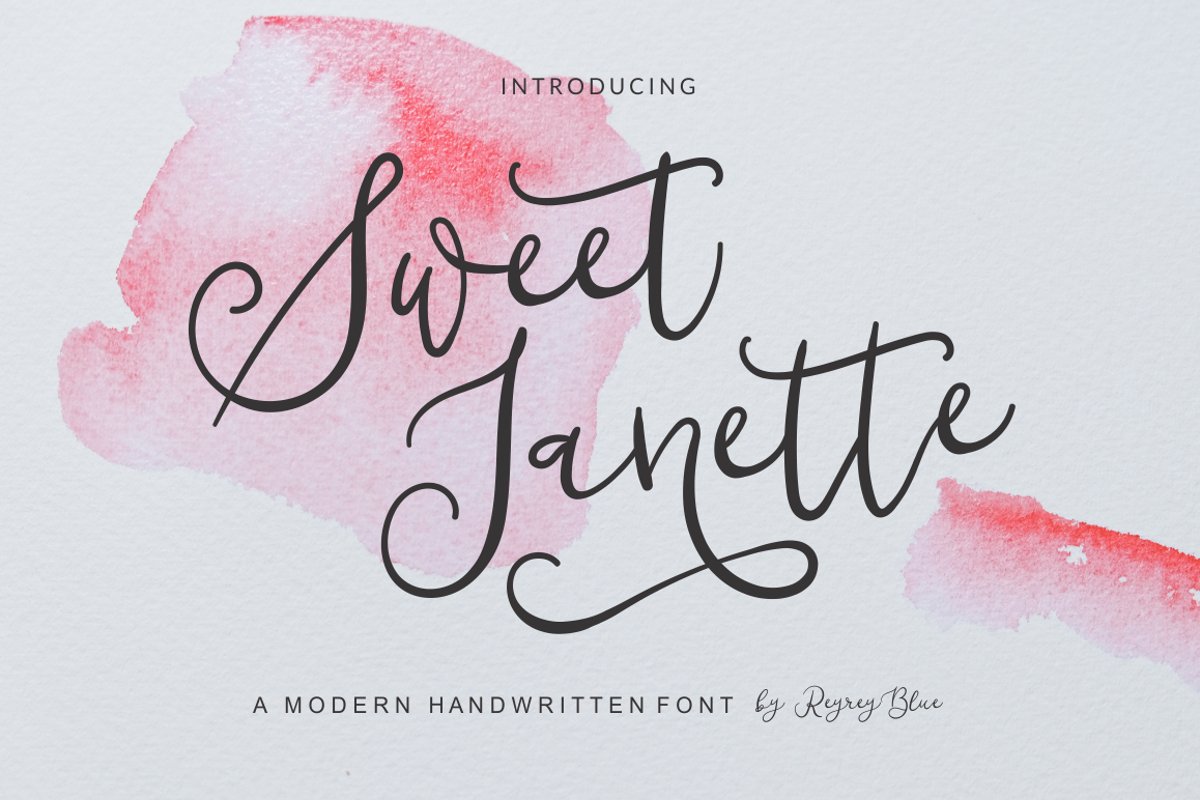
Sweet Janette
Introducing Sweet Janette – A beautiful hand lettering typeface from ReyreyBlue. Sweet Janette font was created to give designers a free alternative which will help you achieve that lettering feel we all love.
Sweet Janette is perfect for branding projects, logo, wedding designs, social media posts, advertisements, product packaging, product designs, label, photography, watermark, invitation, stationery and any projects that need handwriting taste.
Sweet Janette is PUA encoded which means you can access all of the glyphs and swashes with ease! It also features a wealth of special feature including alternate characters (OpenType feature) and multilingual support, this font also suitable to be combined with san-serif to get an extraordinary result for your design projects.
Ligatures
Swash